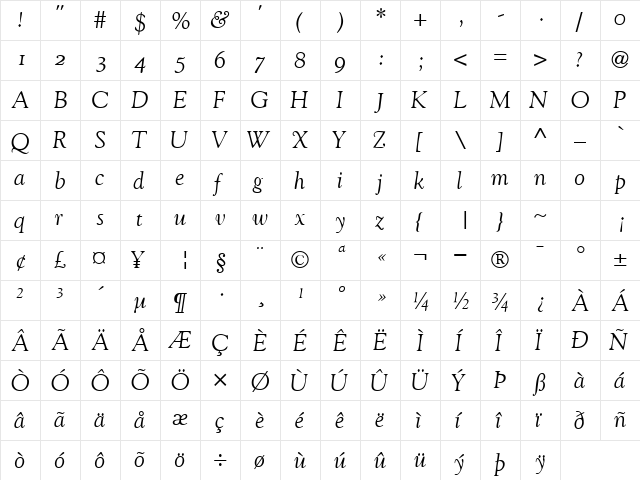
GoudyOSSSK Italic Font Preview
GoudyOSSSK Italic
Design Context for GoudyOSSSK Typeface
GoudyOSSSK is a composed and adaptable typeface that performs quietly and consistently across a wide range of design contexts. The dynamic lean of this cut emphasises speed and emphasis in any layout.
Pro Tip: Use GoudyOSSSK for emphasis, pull quotes, and subheadings where its slanted energy can add rhythm to the layout.